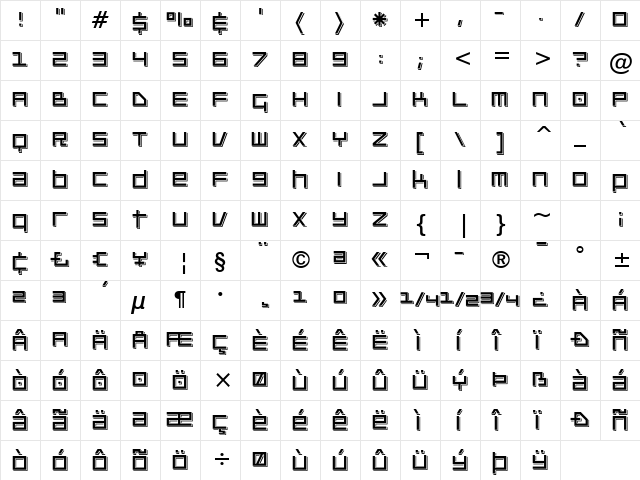
Platinum Beat BTN Raised Regular
Design Context for Platinum Beat BTN Raised Typeface
Platinum Beat BTN Raised takes a measured approach to typography — its balanced proportions and neutral character make it a reliable workhorse for both digital and print work.